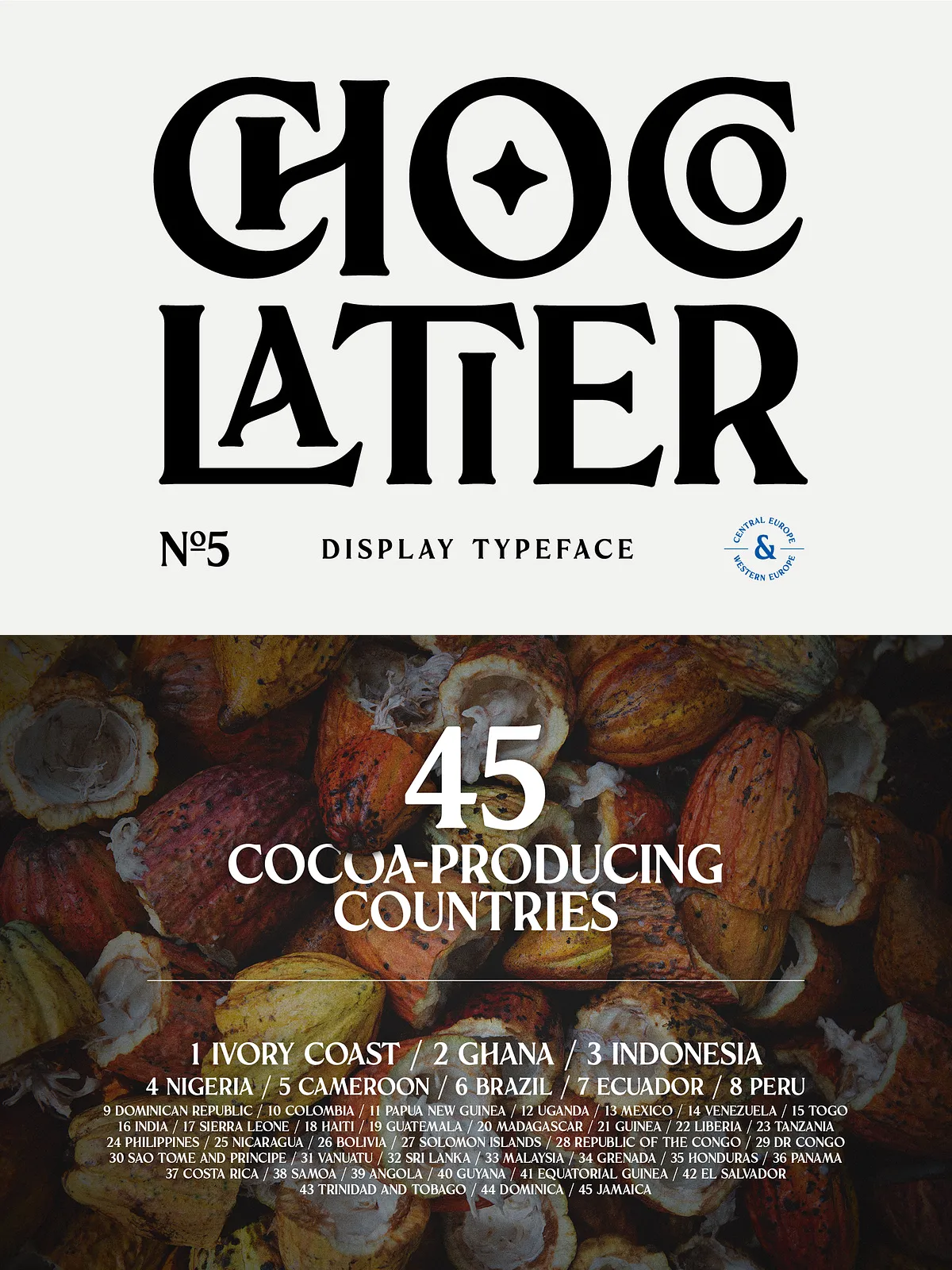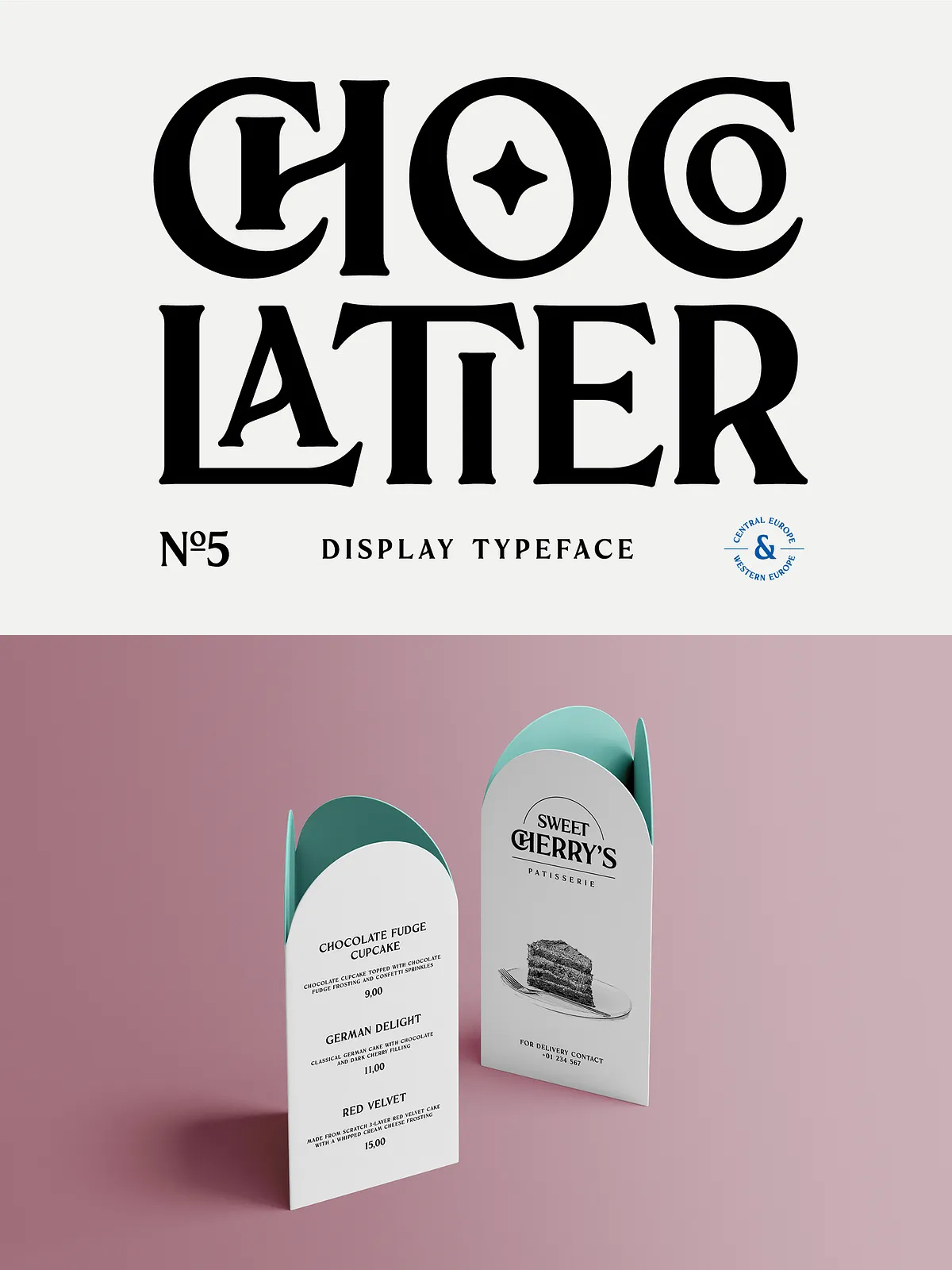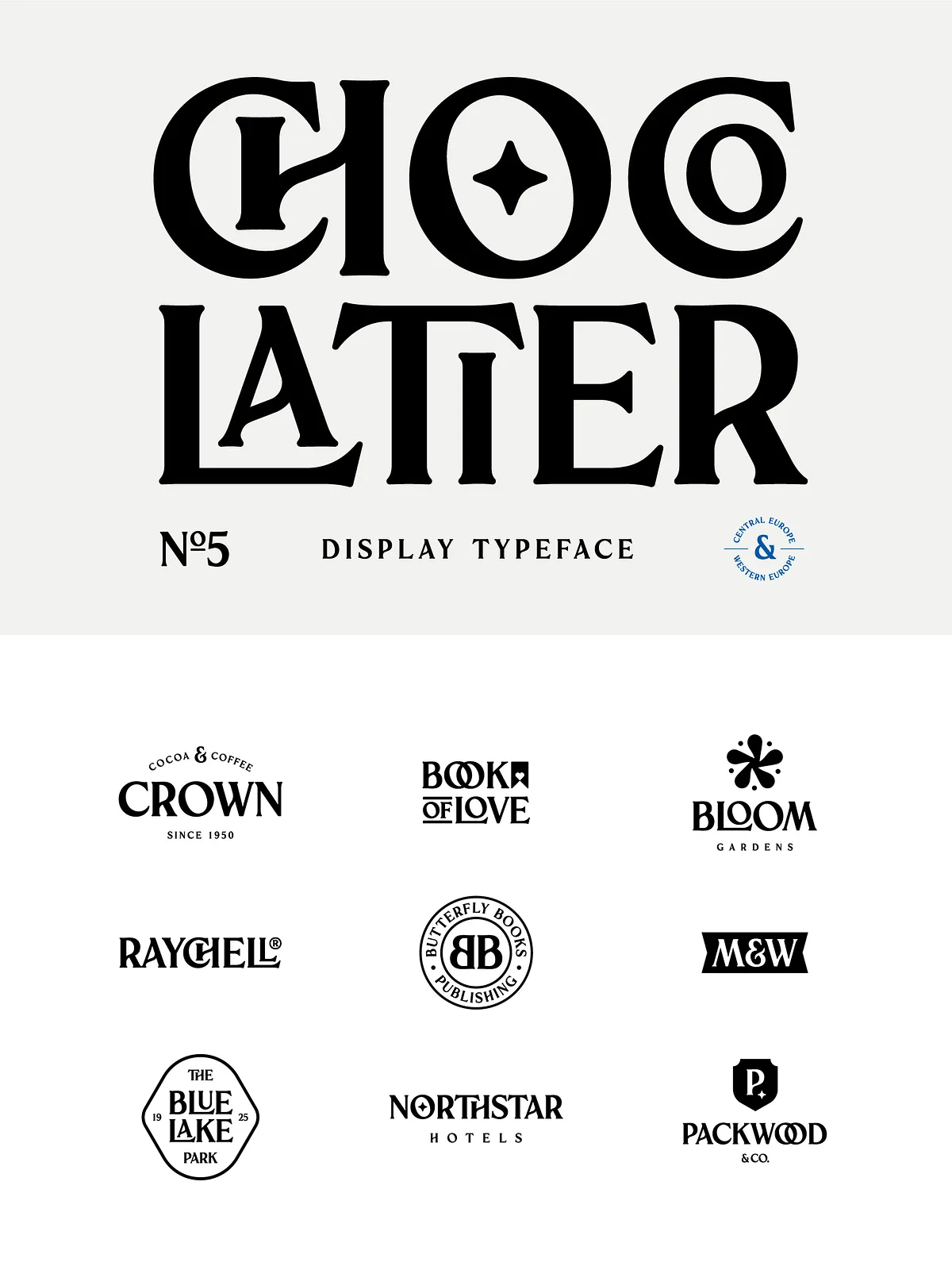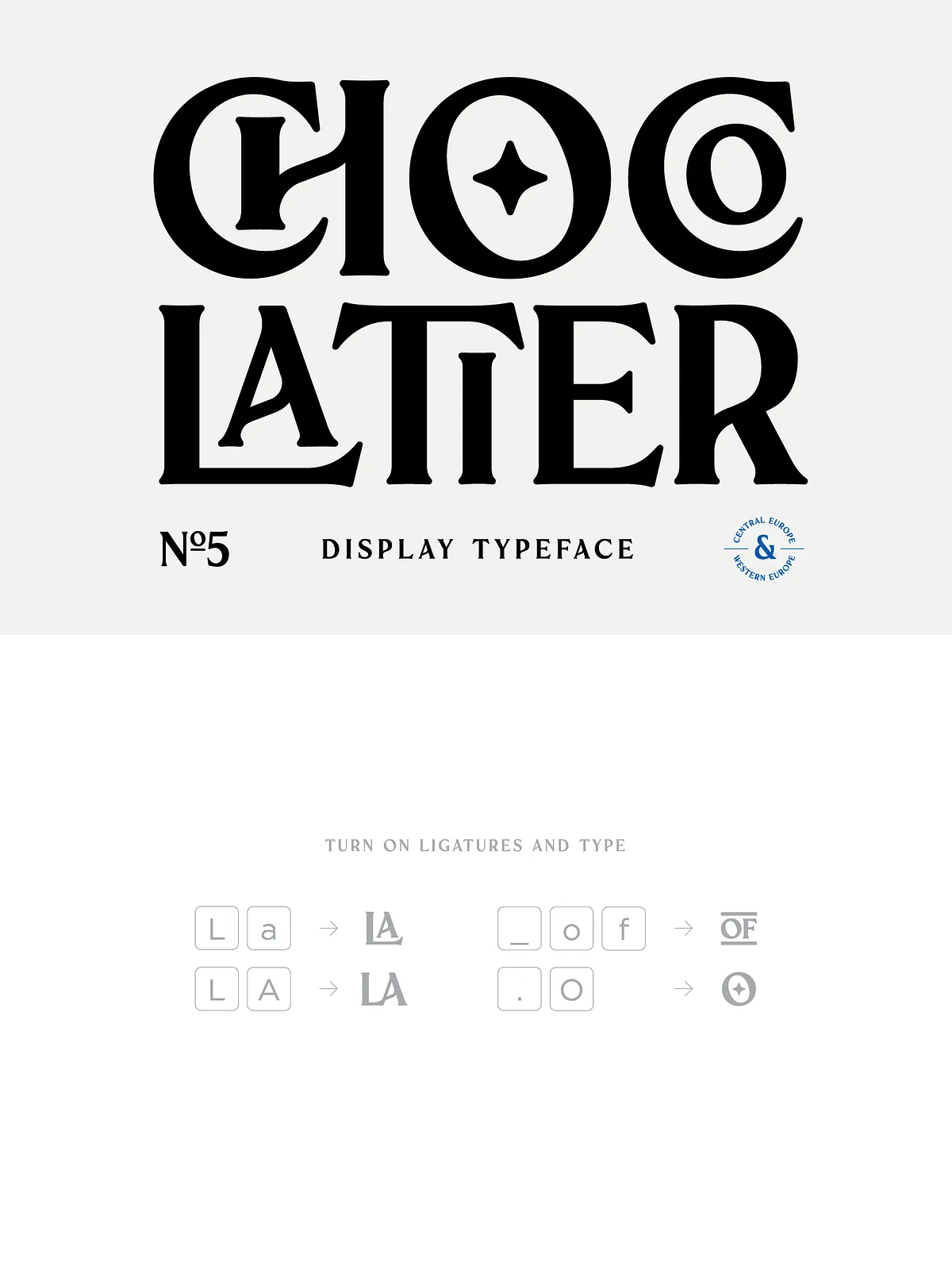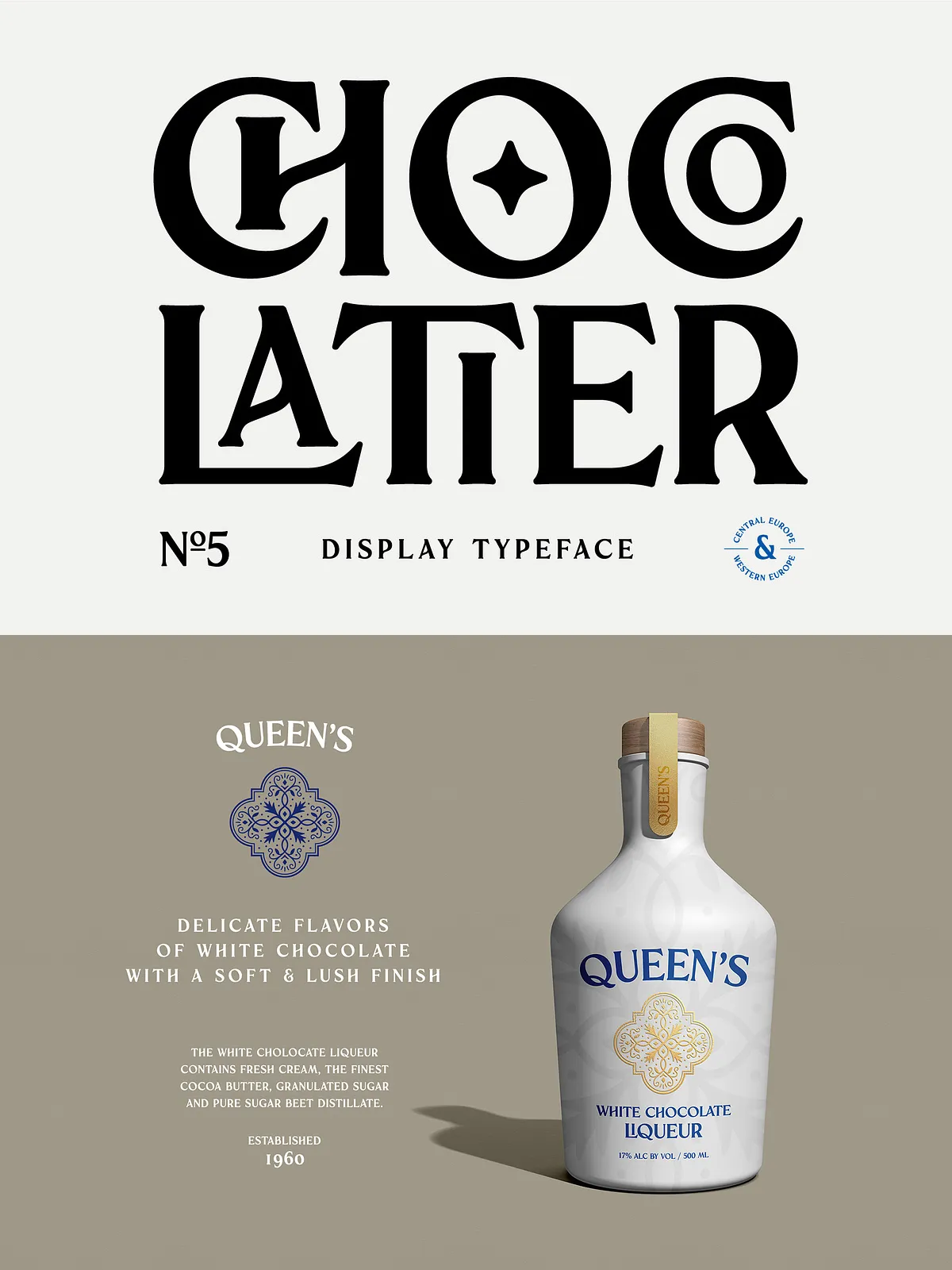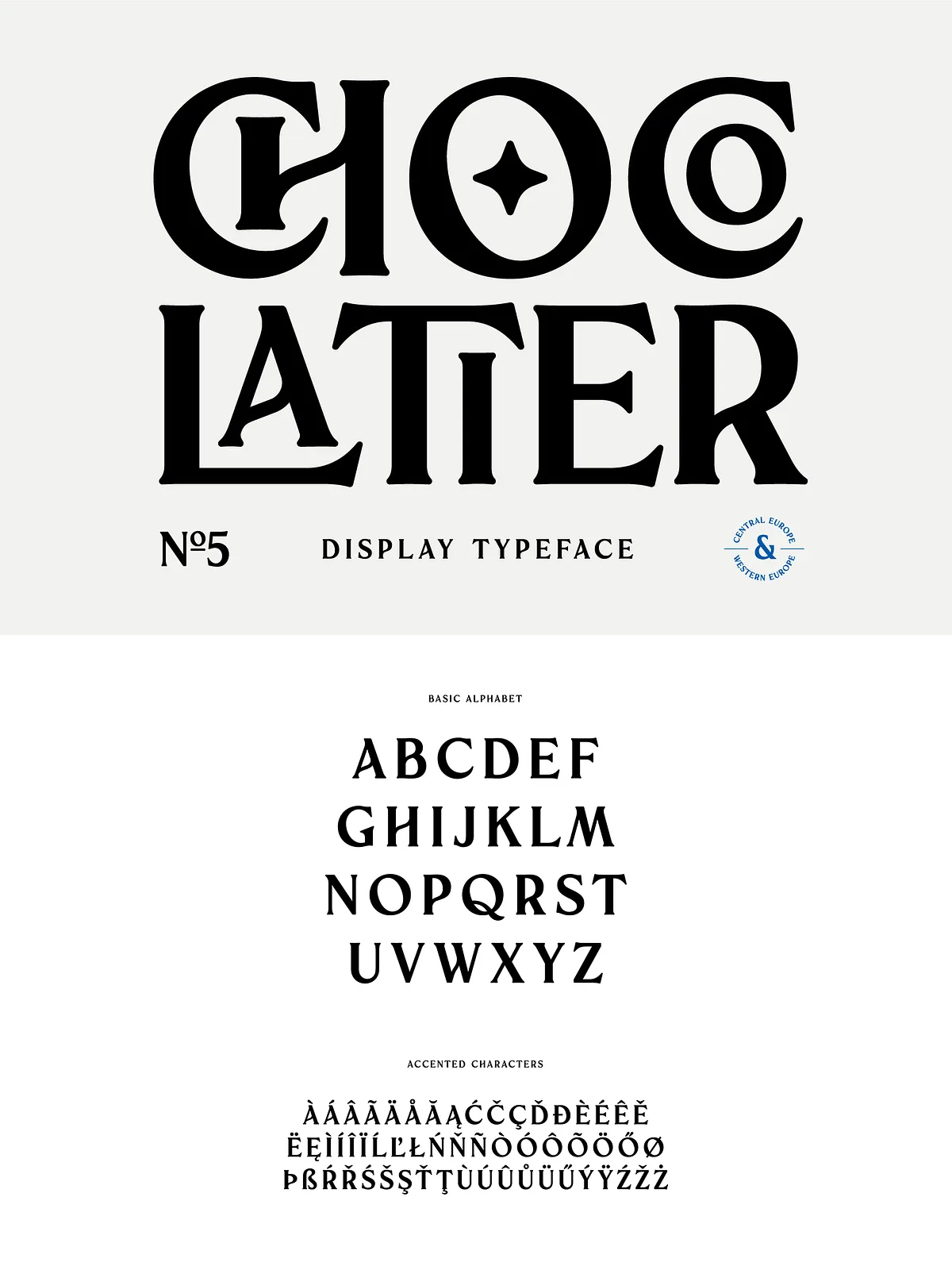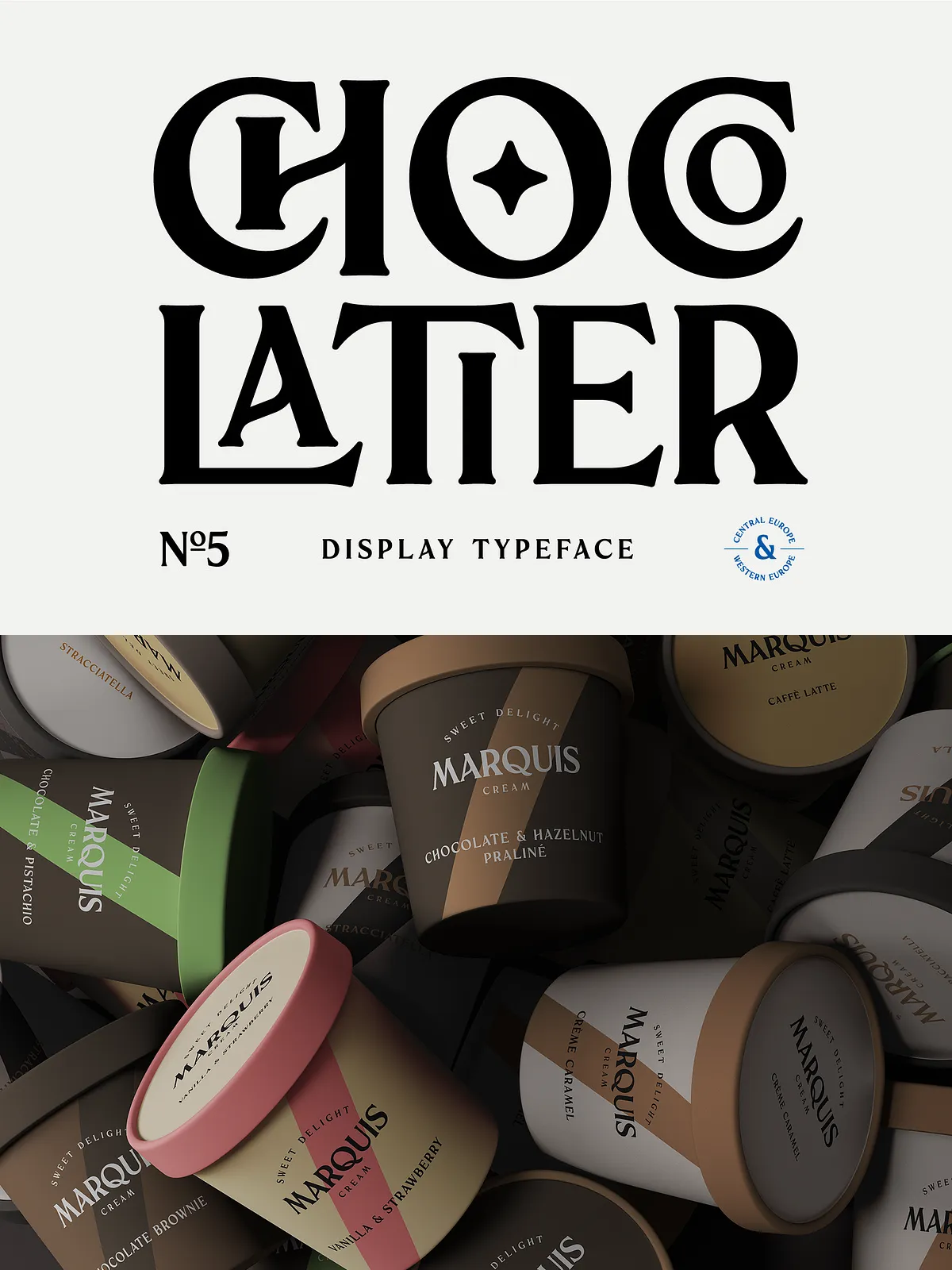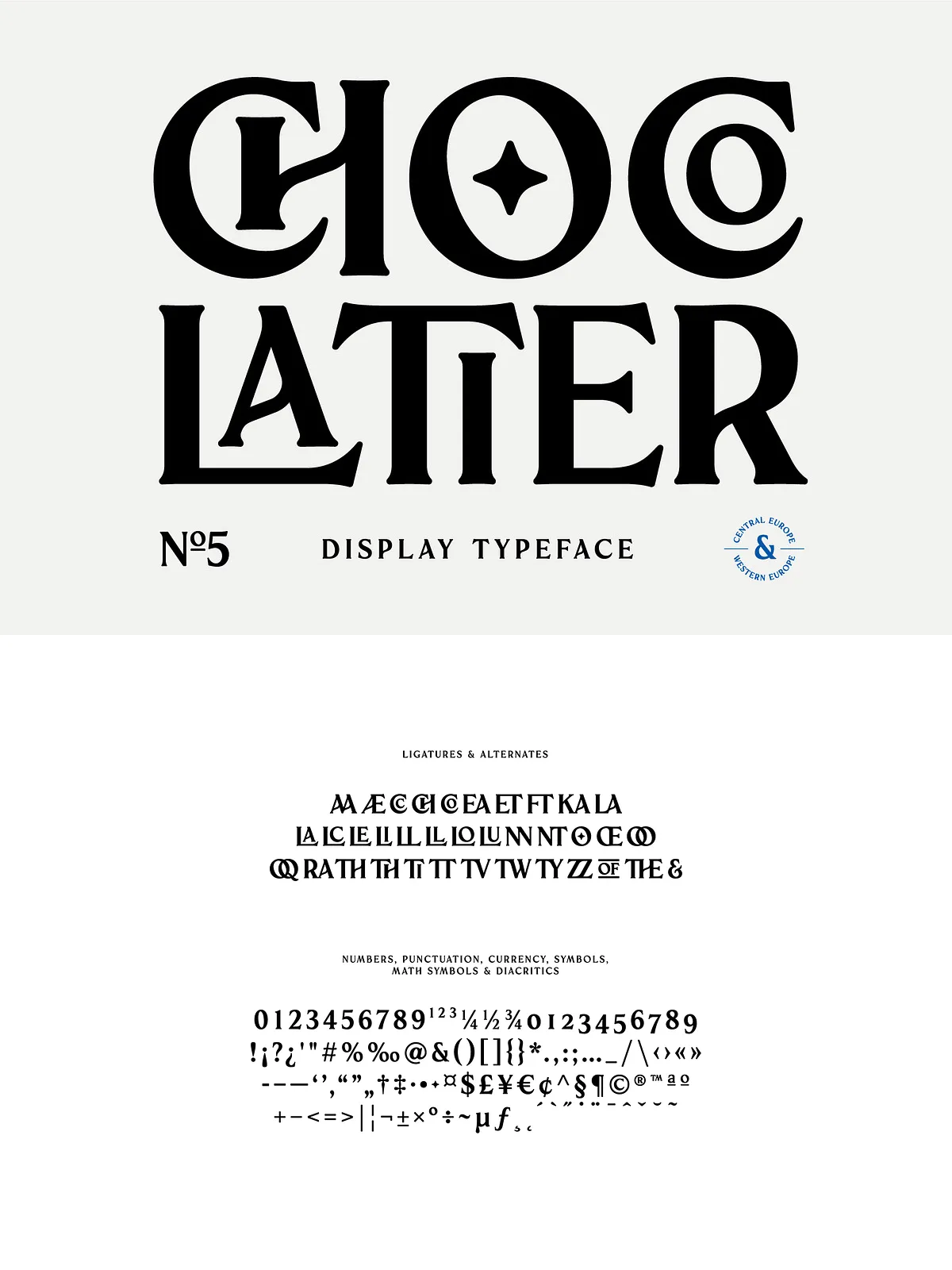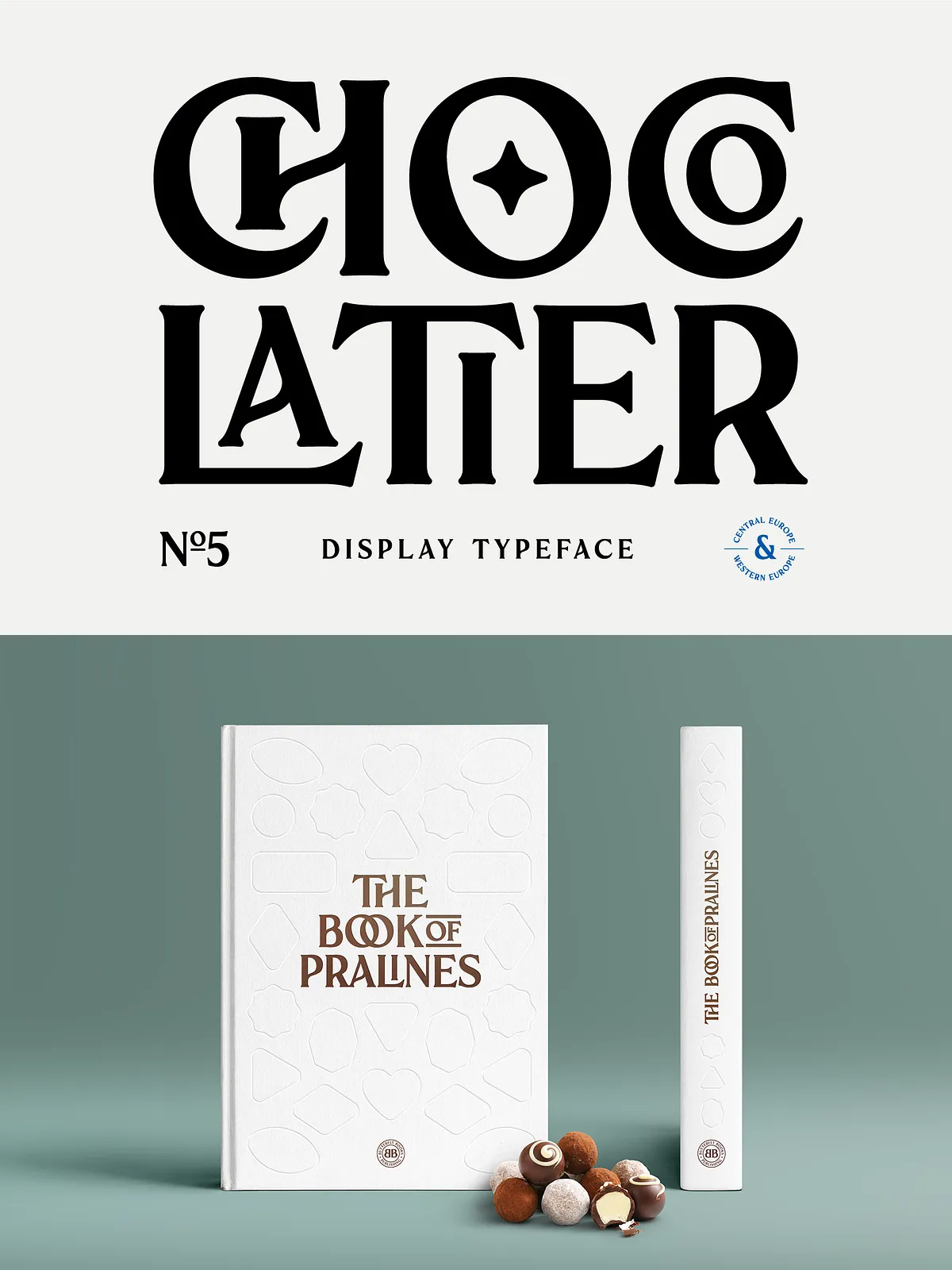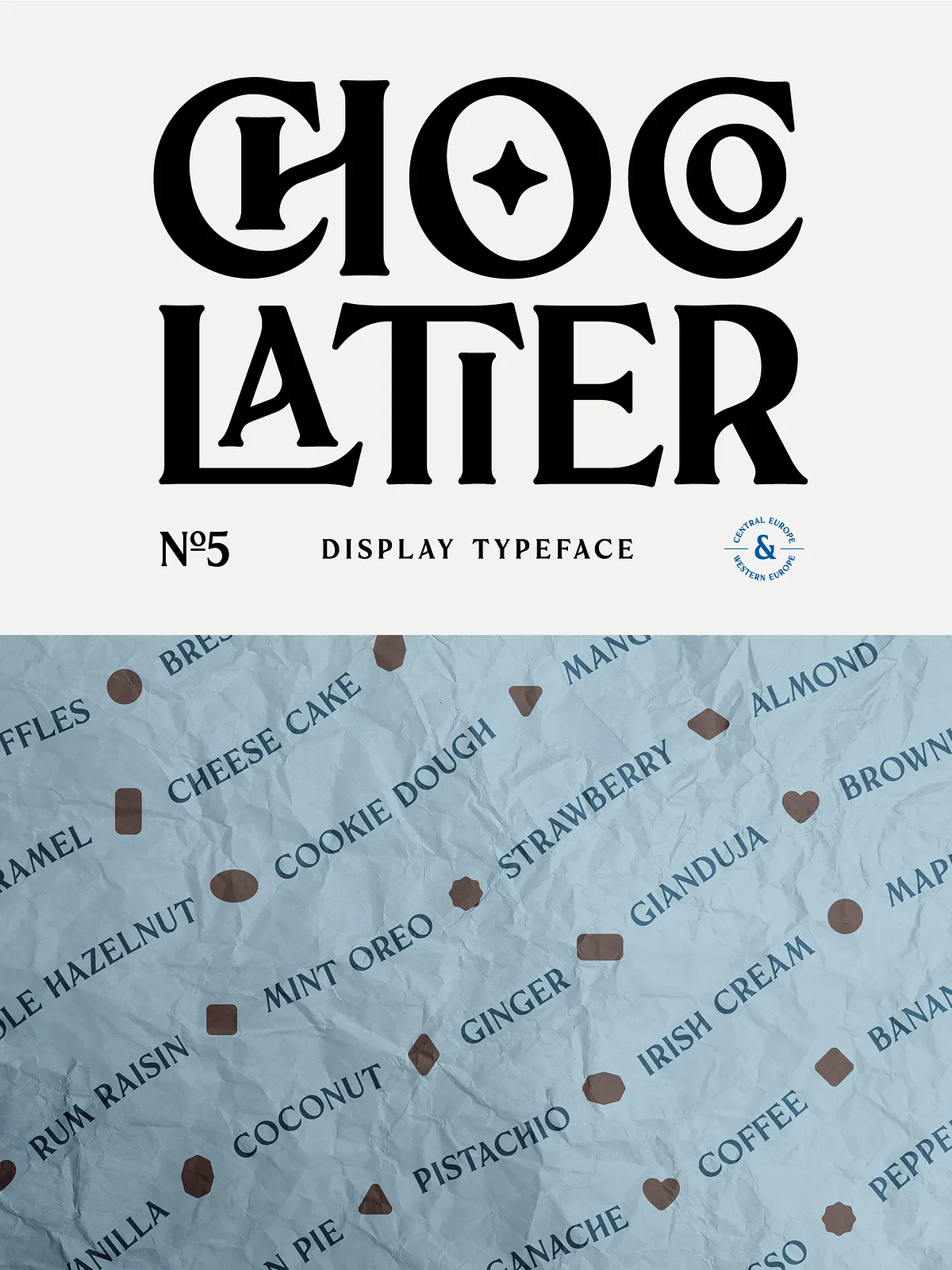
Step into a world of refined grace and timeless charm. Chocolatier isn’t just a font — it’s a statement of elegance, crafted for designers who demand sophistication in every character.
With its soft, flowing edges and perfectly balanced proportions, Chocolatier merges the strength of a serif with the modernity of a clean all-caps layout. It’s designed for moments that matter: where impact meets artistry, and words become works of visual wonder.
Designed for Impact: The Art of the Perfect Headline
Chocolatier excels where other fonts falter: in the spotlight. From magazine covers to luxury packaging, from event invitations to high-end branding, this font doesn’t just announce — it seduces.
Its **36 meticulously crafted ligatures** and **special alternative glyphs** allow you to create unique typographic expressions. Use them to break repetition, build rhythm, or add subtle flair to your headlines. Each alternation is purposefully designed to elevate, never distract.
Plus, enjoy **old style figures** that bring a sense of tradition and elegance to numbers — perfect for premium product tags, invitations, and sophisticated layouts where every detail counts.
Rich Feature Set for the Discerning Designer
- Complete Latin Alphabet (A–Z) – Full coverage for global use.
- 56 Accented Characters – Seamless support for European and international languages.
- Numbers, Punctuation, Currency, Symbols & Math Operators – Robust typographic coverage across all applications.
- Diacritics Support – Perfect for multilingual design projects.
Global Reach, Local Precision: Language Support That Delivers
Chocolatier is built for a global audience, but crafted with care for local nuance.
It supports:
- Latin 1 + Latin 2 – Comprehensive Latin script coverage.
- Western European & American Languages: Afrikaans, Basque, Catalan, Danish, Dutch, English, Faroese, Finnish, French, Galician, German, Icelandic, Irish, Italian, Norwegian, Portuguese, Spanish, and Swedish.
- Central & Eastern European Languages: Czech, Hungarian, Polish, Romanian, Croatian, Slovak, Slovene, and others — with full diacritic compatibility.
Whether you’re designing for a Parisian café, a Berlin gallery, or a Buenos Aires event, Chocolatier handles the language with fluency and style.
Where Elegance Meets Application
Let Chocolatier transform mundane moments into unforgettable experiences:
- Logos & Brand Identities – Build a distinctive look that feels both luxurious and timeless.
- Packaging & Labels – Make your product stand out with a font that whispers quality before a word is read.
- Invitations & Stationery – Create wedding cards, event announcements, and business invites that feel like heirlooms.
- Magazines & Editorial Design – Use for pull quotes, section headers, and feature titles to add visual poetry.
- Postcards & Marketing Collaterals – Craft postcards that don’t just inform — they enchant.
- Presentations & Pitch Decks – Command attention with headlines that speak sophistication.
Pro Design Tips: Get the Most from Chocolatier
- Use Ligatures Strategically: Don’t use them all at once. Pick 2–3 key ligatures to add visual interest without losing clarity.
- Leverage Old Style Figures: Pair with a clean sans-serif body text to contrast elegance and modernity.
- Pair with Neutral Backgrounds: Let Chocolatier shine. Use white, cream, or soft gray to give it space to breathe.
- Limit All-Caps Usage in Long Text: Reserved for headlines, titles, or quotes. It’s a display font — use it to lead, not to sustain.
- Test on Print and Screen: Chocolatier renders beautifully both in print (for packaging) and on screens (for web banners), but ensure proper kerning in all formats.
Make Your Brand Feel Like a Masterpiece
Chocolatier isn’t just about letters. It’s about feeling. It’s the font that makes someone pause. That makes them tilt their head. That makes them feel a little more special just by reading it.
Whether you’re a fashion designer, a publisher, an event planner, or a branding agency, Chocolatier gives you the power to turn text into emotional experience.
With its soft edges, refined details, and global language support, this is the ultimate display serif for the modern, stylish designer.